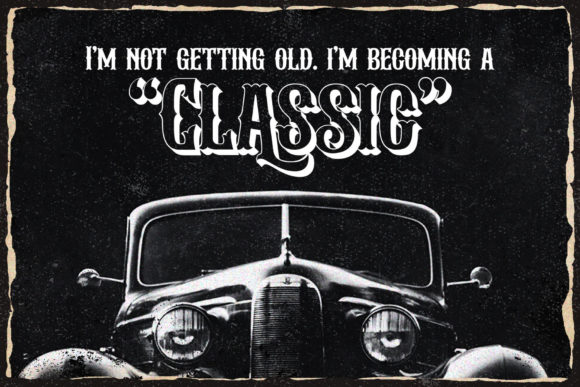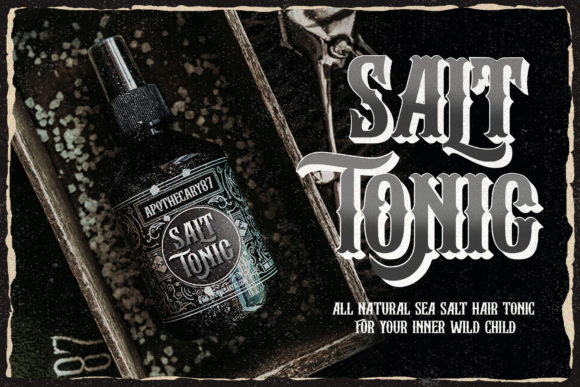
Albertson Font
Albertson is a strong retro blackletter font. This assertive font was created to enhance the beauty of your designs. It is PUA encoded which means you can access all of the glyphs and swashes with ease!